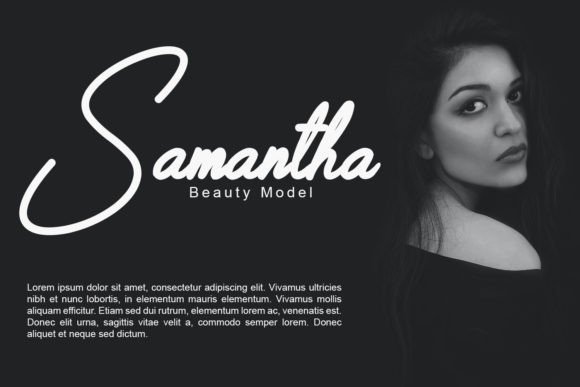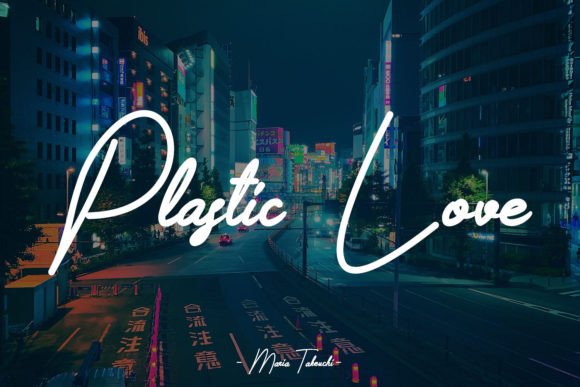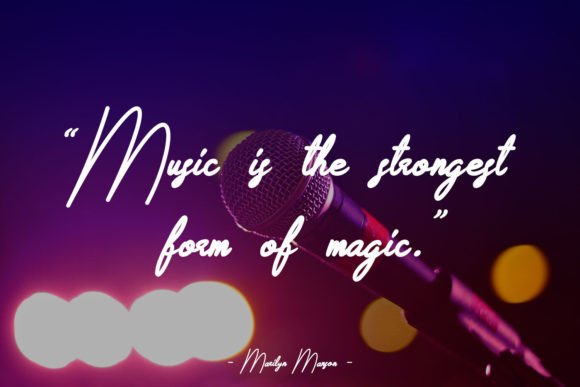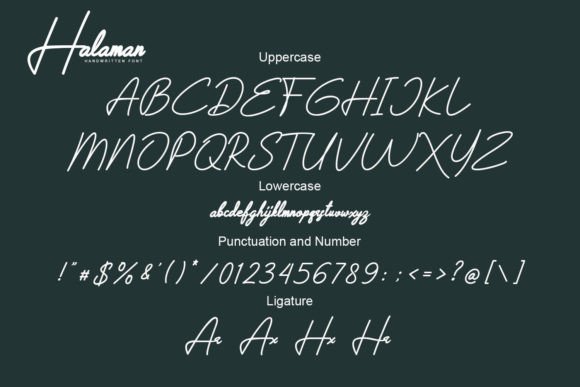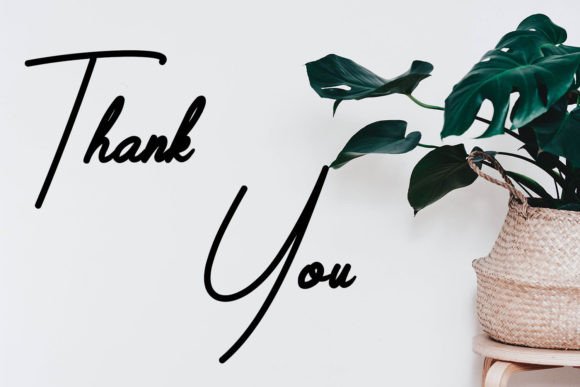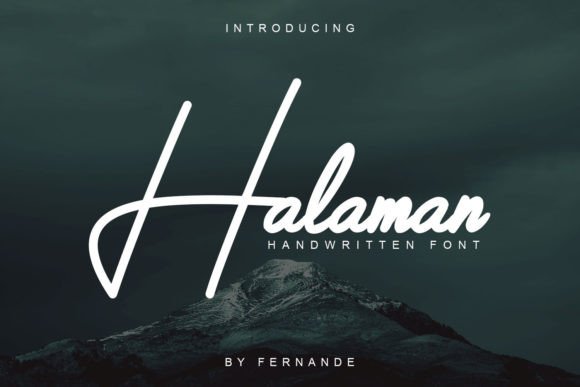
Introducing Halaman: The Handwritten Typeface that Embodies Elegance and Dynamism
In the world of typography, a new star has emerged, shining bright with its unique blend of softness, elegance, and dynamism. Meet Halaman, a distinct handwritten typeface that is handcrafted from the heart, exuding an organic warmth that brings life to each letter. This beautiful font is designed to add a touch of relaxed sophistication to various creative designs, making it the perfect choice for designers and crafters seeking a unique aesthetic touch.
The Characteristics of Halaman
Halaman is a masterfully crafted font, boasting interwoven, bold strokes that lend an expressive and charismatic touch to any design. Its smooth consistency ensures that the font remains legible and visually appealing, even at smaller sizes. The letterforms are creatively sculpted with inviting curves, casting an aura of friendliness and comfort. This thoughtful design makes Halaman an excellent choice for projects that require a personal, human feel.
The Benefits of Using Halaman
So, what sets Halaman apart from other typefaces? Here are just a few benefits of using this stunning font:
- Unique Aesthetic: Halaman’s handcrafted nature ensures that each letter is unique, adding a touch of personality to your designs.
- Elegance and Sophistication: The font’s smooth, flowing lines and elegant curves evoke a sense of refinement and poise.
- Versatility: Halaman is suitable for a wide range of creative projects, from logos and invitations to branding endeavors.
- Legibility: The font’s careful design ensures that it remains clear and readable, even at smaller sizes.
Halaman is an excellent choice for designers and crafters seeking to add a personal touch to their projects. Whether you’re creating:
- Logos: Halaman’s unique aesthetic and elegance make it an excellent choice for logos that require a touch of sophistication.
- Invitations: The font’s friendly, inviting curves make it perfect for wedding invitations, birthday cards, and other social event invites.
- Branding: Halaman’s relaxed, yet refined nature makes it an excellent choice for branding endeavors that require a human feel.
Tips for Using Halaman Effectively
To get the most out of Halaman, consider the following tips:
- Pair with contrasting fonts: Combine Halaman with a clean, sans-serif font to create visual interest and hierarchy.
- Experiment with colors: Halaman’s elegant curves look stunning in a range of colors, from soft pastels to rich jewel tones.
- Play with sizes: Use Halaman in a range of sizes to create visual interest and emphasis.
In conclusion, Halaman is a unique and captivating handwritten typeface that embodies elegance, dynamism, and a touch of relaxed sophistication. Its handcrafted nature, smooth consistency, and inviting curves make it an excellent choice for designers and crafters seeking to add a personal touch to their projects. With its versatility, legibility, and aesthetic appeal, Halaman is sure to become a go-to font for creative endeavors demanding an intimate, human feel.